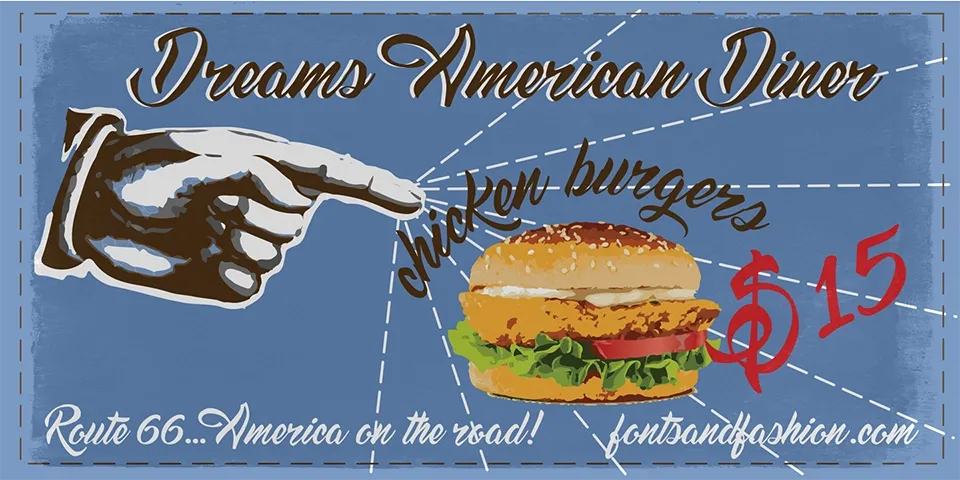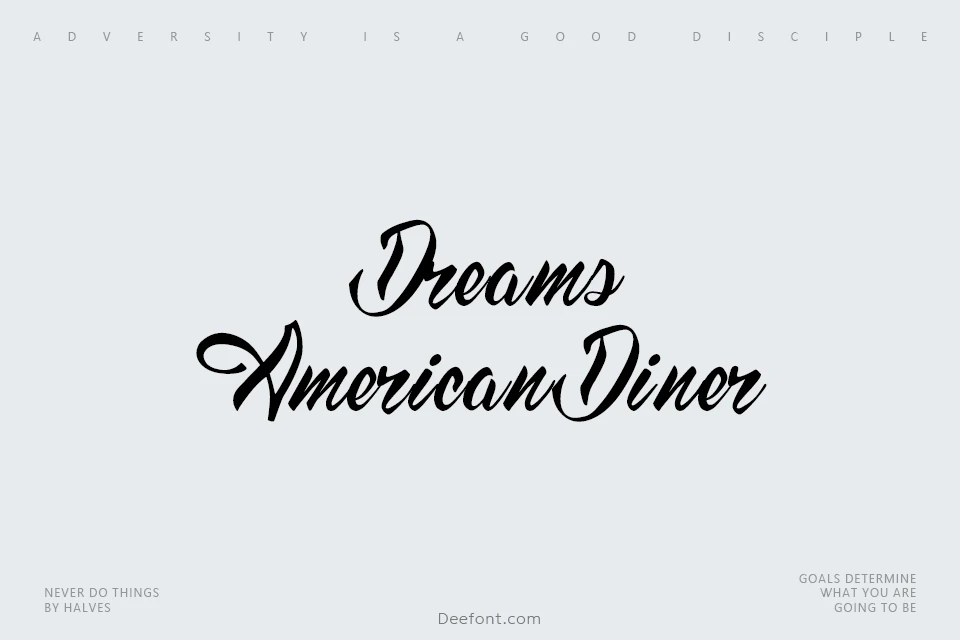
Dreams American Diner Font
Dreams American Diner Font is a beautiful, well-balanced, and vintage-styled script font. Defined by smooth curves and a retro flair, it is perfect for fashion branding, editorial designs, and especially for menus or signage inspired by classic American diners. Add Dreams American Diner confidently to your creative projects for an elegant and nostalgic touch.